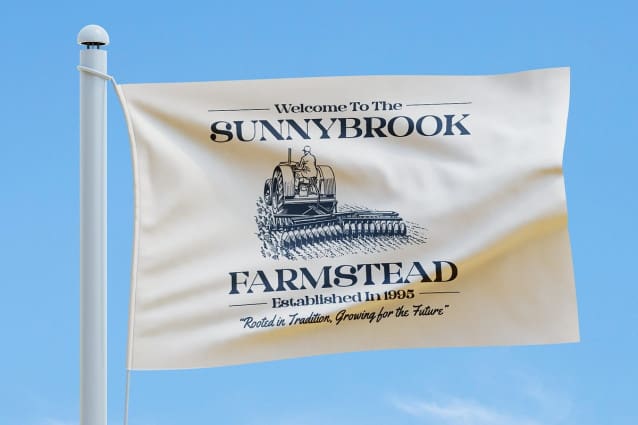
Lamna Rough Font
Lamna Rough Font is a wide retro serif font that combines classic serif characteristics with a distinctive rough effect. Its broad, elegant letterforms amplify its sophisticated and timeless appeal, making it a standout choice for projects seeking a touch of retro charm.
The rough effect introduces a unique, textured dimension that contrasts beautifully with the wide, refined shapes. This bold touch adds an artistic flair, giving the font a dynamic and memorable presence.
Perfect for sophisticated branding, vintage-inspired designs, or any project that demands a blend of classic style and striking visual impact, Lamna Rough brings a distinctive and standout appearance to the forefront. Its retro elegance and textured detail make it an excellent choice for designs that aim to captivate and impress.
Lamna Rough merges wide, elegant serifs with a rugged texture, offering a powerful mix of classic sophistication and bold artistry. Ideal for creating memorable branding and impactful vintage designs, this font ensures your projects stand out with both elegance and uniqueness.